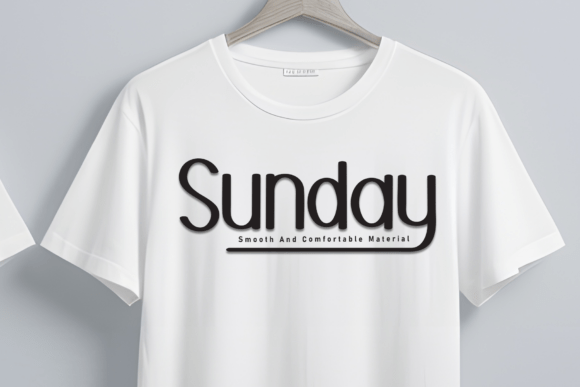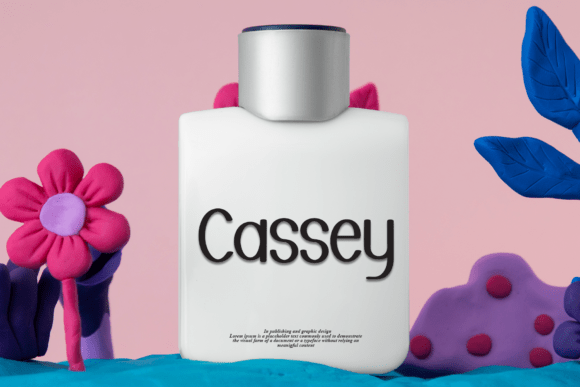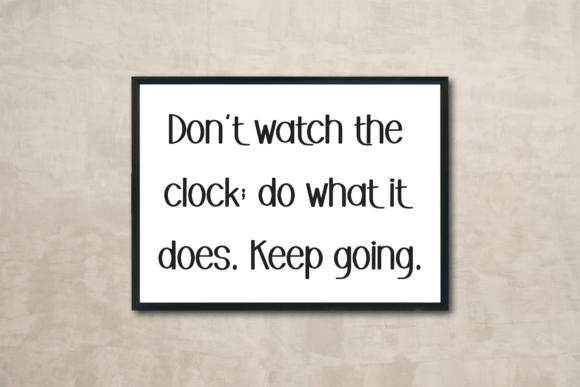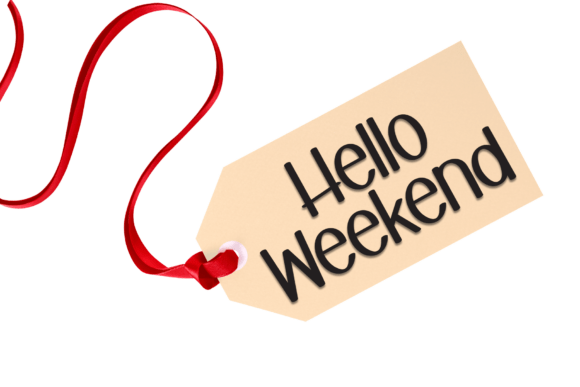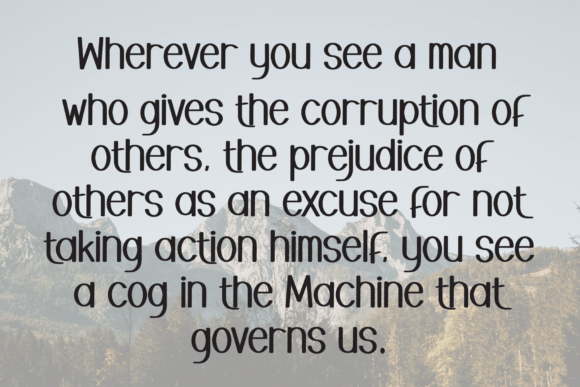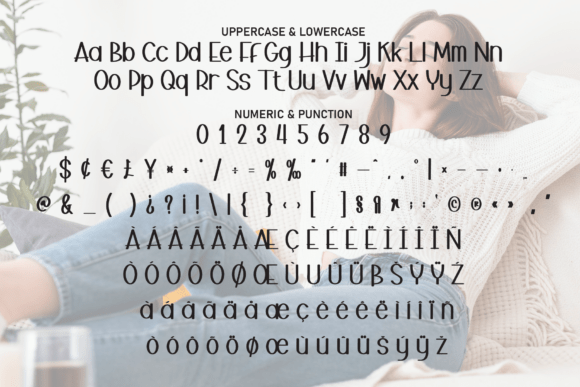
Discover the Charm of Calming Font: A Sweet and Friendly Handwritten Display Font
In the world of typography, fonts play a crucial role in conveying emotions and setting the tone for various design projects. If you’re a designer or crafter looking for a font that exudes warmth, friendliness, and a touch of playfulness, look no further than the Calming Font. This charmingly warm and affable handwritten display font is designed to radiate a sweet and friendly demeanor, making it perfect for adding a sprinkle of fun to your wedding invitations, greeting cards, or any design project yearning for a bubbly, vivacious touch.
The Perfect Blend of Formal Sophistication and Playfulness
What sets the Calming Font apart is its ideal blend of formal sophistication and a playful vibe. This unique combination allows designers to create visually appealing and engaging designs that are both elegant and fun. Whether you’re working on a wedding invitation, a greeting card, or a branding project, this font is sure to transform your design into a delightful visual treat.
Adorable and Spirited Character
The Calming Font boasts an adorable and spirited character that is sure to capture the attention of your audience. Its handwritten display style gives it a personal and approachable feel, making it perfect for designs that require a touch of warmth and personality. The font’s playful and lively demeanor is sure to evoke emotions and create a lasting impression on your audience.
Ideal for Various Design Projects
The Calming Font is a versatile font that can be used for a wide range of design projects. Here are some of the ideal uses for this font:
- Wedding Invitations: Add a touch of elegance and playfulness to your wedding invitations with the Calming Font. Its formal sophistication and playful vibe make it perfect for wedding designs.
- Greeting Cards: Create personalized and engaging greeting cards with the Calming Font. Its friendly and approachable style is sure to make your cards stand out.
- Branding Projects: Use the Calming Font to add a touch of personality to your branding projects. Its unique blend of formal sophistication and playfulness makes it perfect for brands that want to stand out.
- Social Media Graphics: Create engaging social media graphics with the Calming Font. Its playful and lively demeanor is sure to capture the attention of your audience.
Why Choose the Calming Font?
With so many fonts available, why choose the Calming Font? Here are some reasons why this font stands out:
- Unique Style: The Calming Font has a unique style that sets it apart from other fonts. Its blend of formal sophistication and playfulness makes it perfect for designers who want to create visually appealing designs.
- Easy to Read: The Calming Font is easy to read, making it perfect for designs that require a clear and concise message.
- Versatile: The Calming Font is a versatile font that can be used for a wide range of design projects.
In conclusion, the Calming Font is a charmingly warm and affable handwritten display font that is perfect for designers and crafters looking to add a sprinkle of fun to their designs. Its unique blend of formal sophistication and playfulness makes it ideal for wedding invitations, greeting cards, branding projects, and social media graphics. With its adorable and spirited character, this font is sure to transform any design into a delightful visual treat.